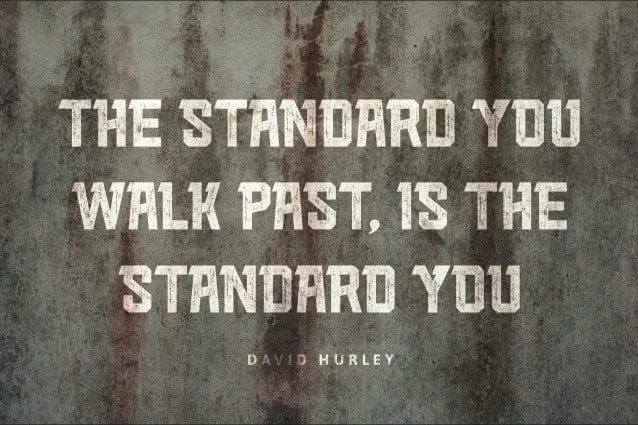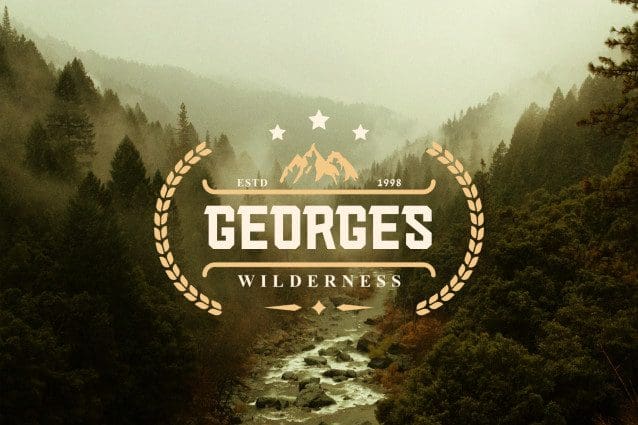
Rust Core Sport Font
Rust Core Sport Font – display font with 4 styles included (Clean and Stamp/Textured). Perfect for branding projects, logos, labels and more. With texture like rust core, will make your design, product, logo or label more cool, unique and meaningful.